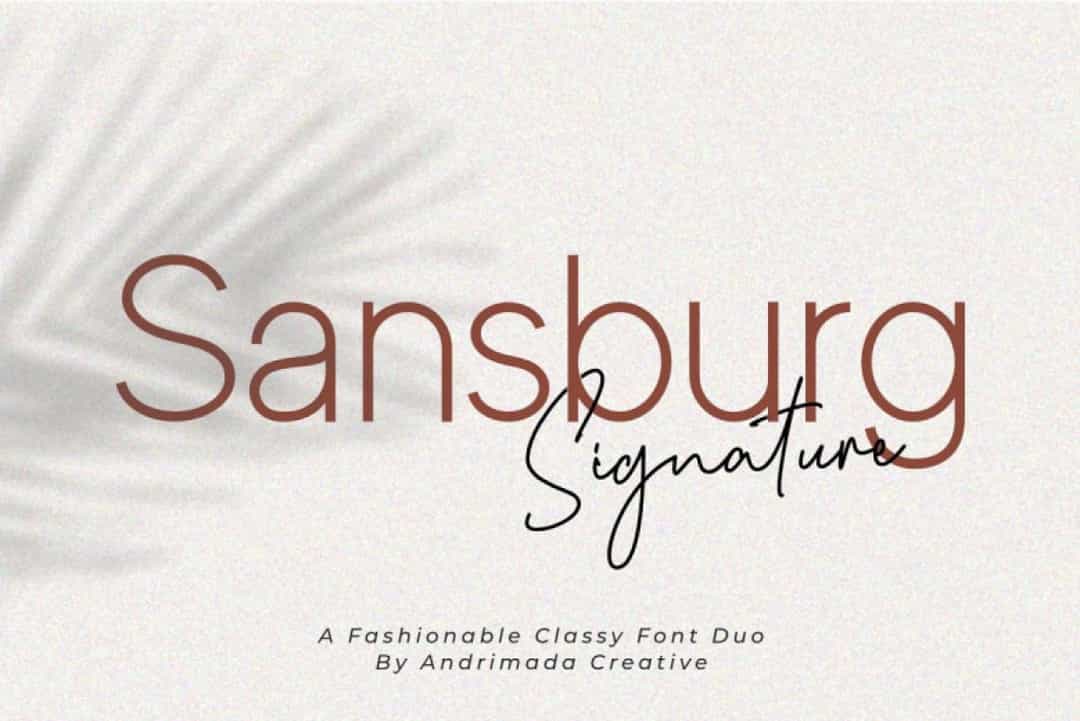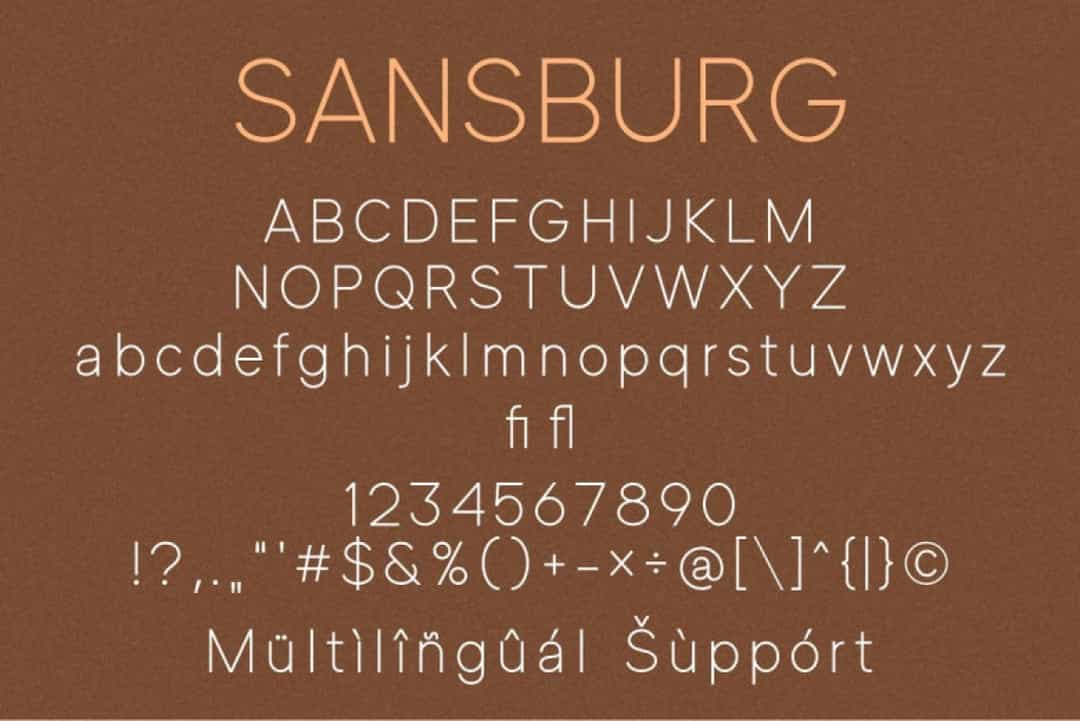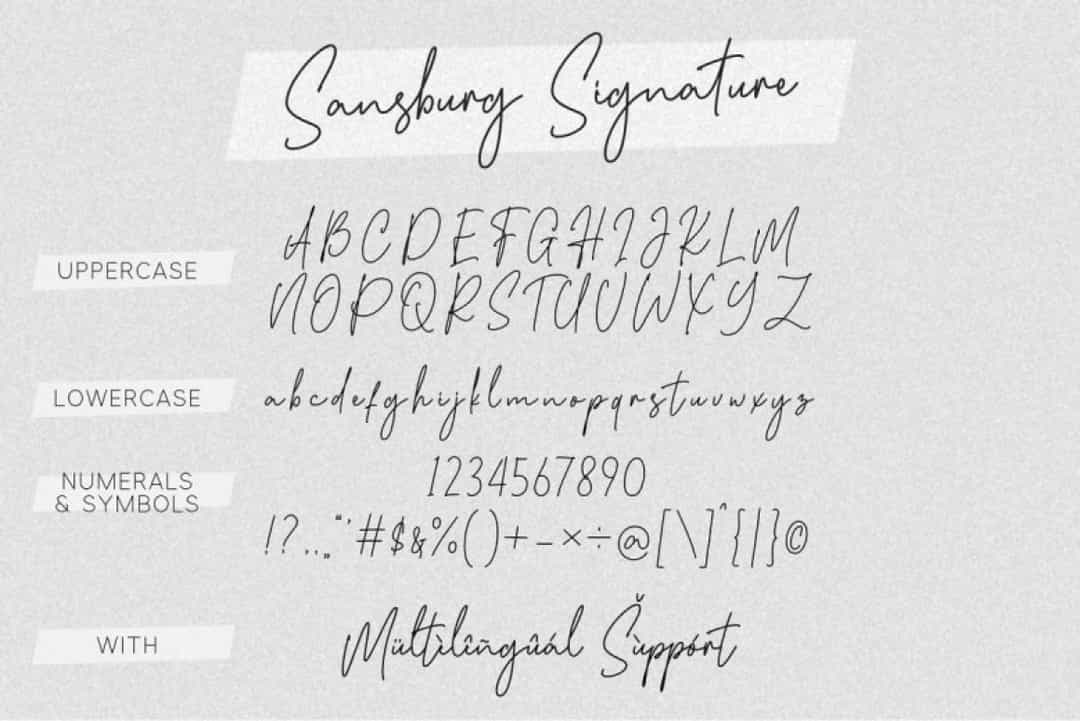
Sansburg is an amazing and multi-purpose dual font (script and sans serif) PUA encoded, giving you access to its many glyphs, swashes and characters with ease! Be amazed by its incredible versatility – take advantage of it to create outstanding designs!